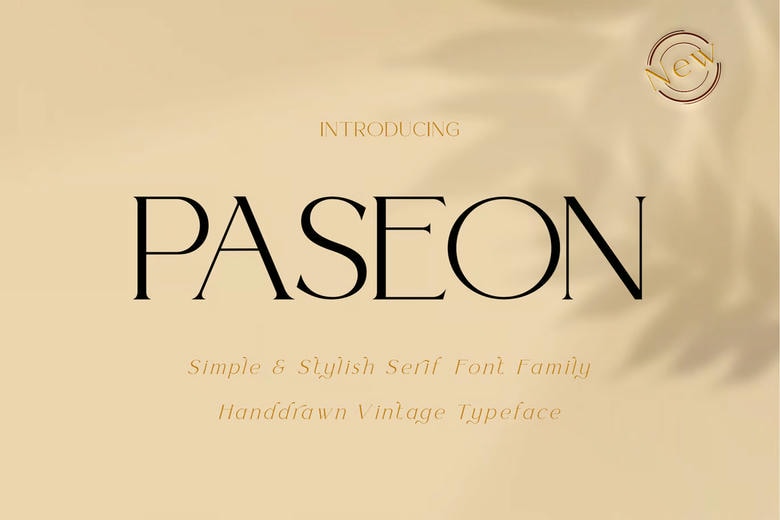
Paseon Font Family
Paseon is a collection of serif fonts that seamlessly blends classic grace and refined style. With its elegant curves and intricate details, this font family adds a touch of distinguished luxury to any design project. Perfect for everything from chic invitations and prestigious corporate logos to captivating movie titles and elegant business cards,
It’s designed to enhance your creative endeavors. Comprised of 14 unique and beautifully designed font variations , the simple and elegant Paseon Serf family offers a diverse range of options to suit any design need.
Paseon Serif Font Family